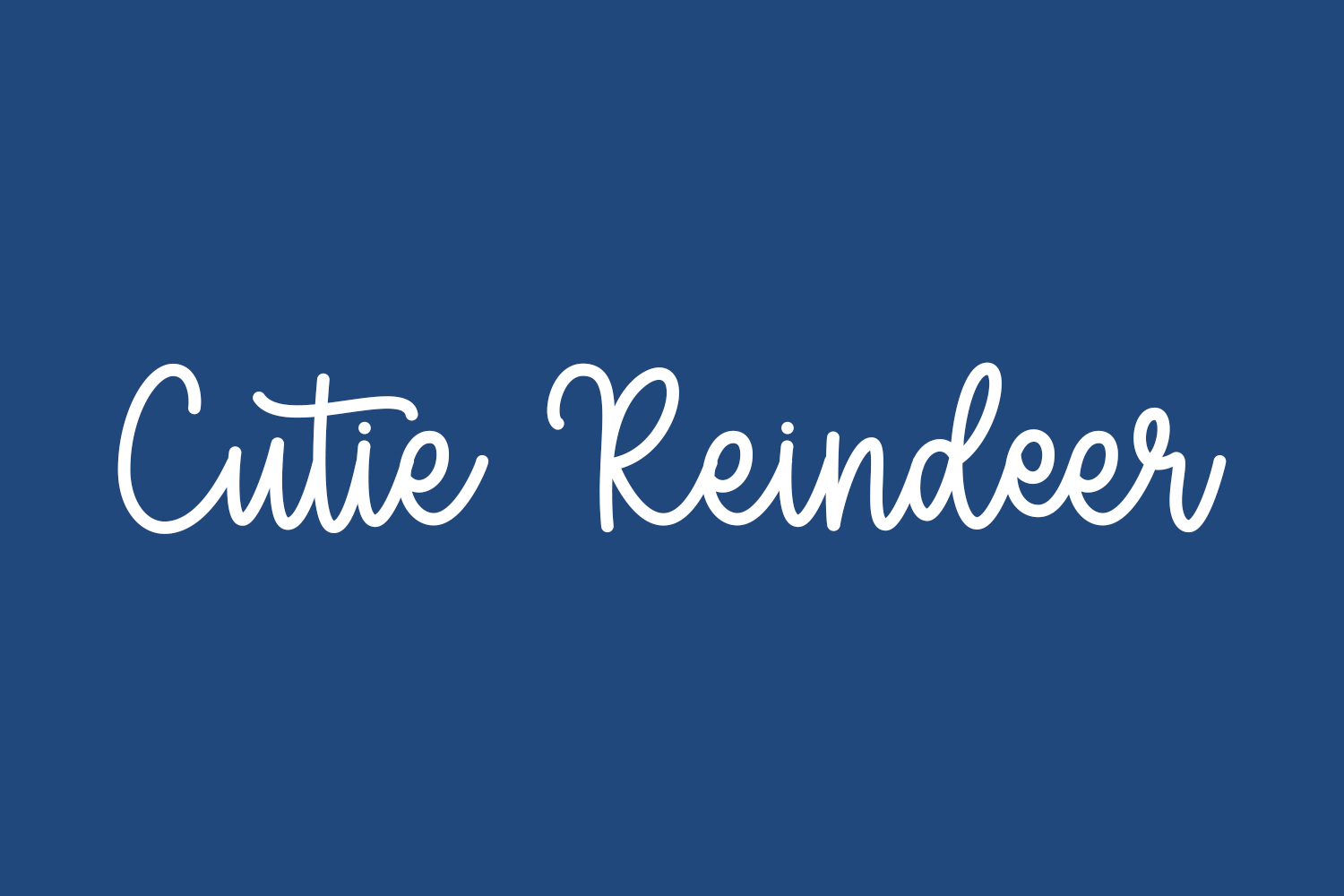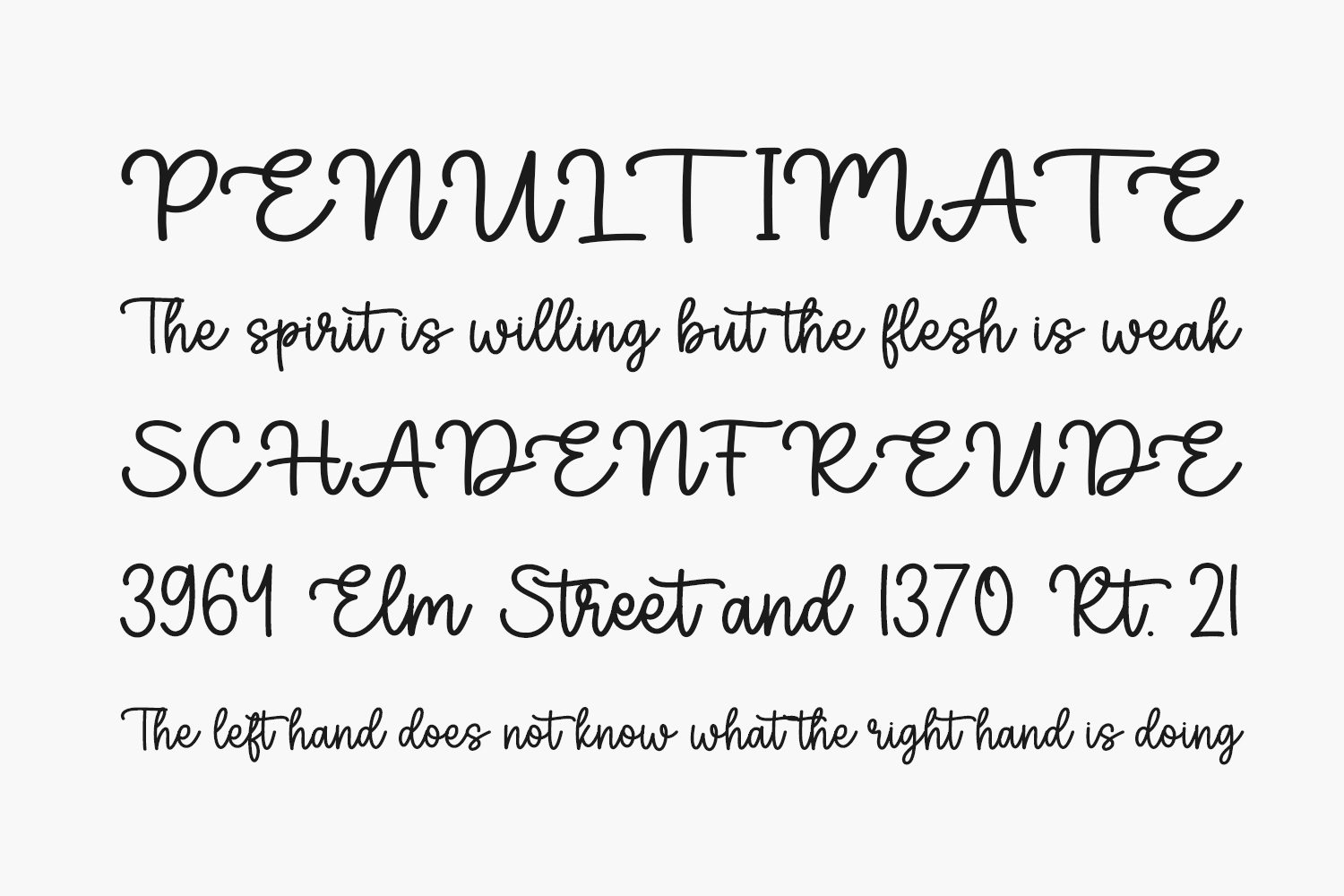
Introducing Cutie Reindeer Free Font, an elegant and graceful handwritten font that embodies charm and festive cheer. With its delicate strokes and Christmasy essence, this font is perfect for adding a romantic and personalized touch to wedding invitations, cards, and various designs. Cutie Reindeer Free Font is free for personal use only. Please purchase the full version for commercial use.
Designed by Nirmala Creative